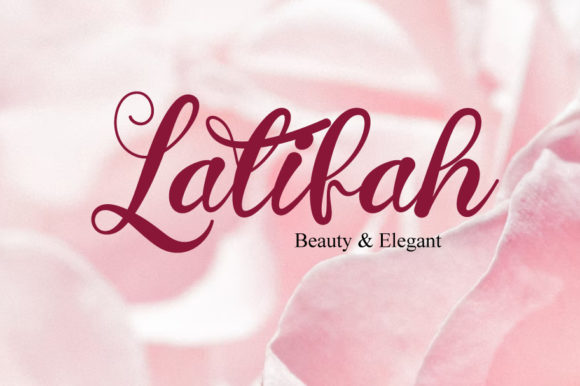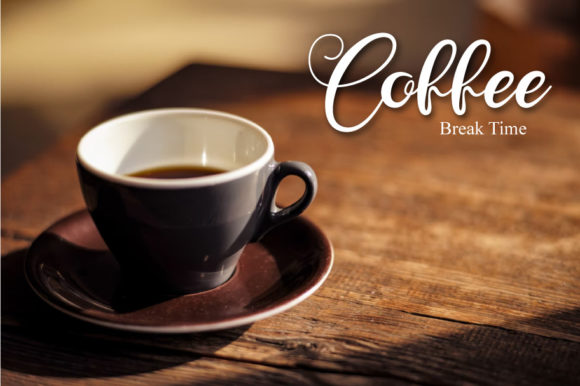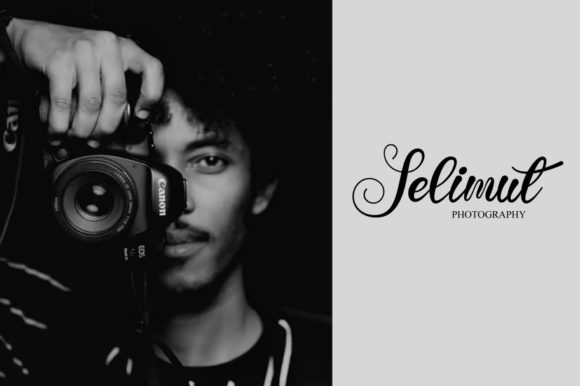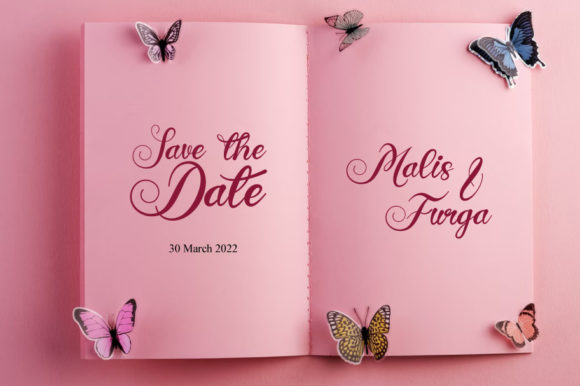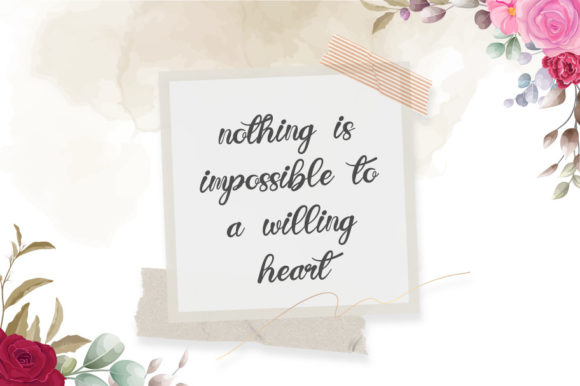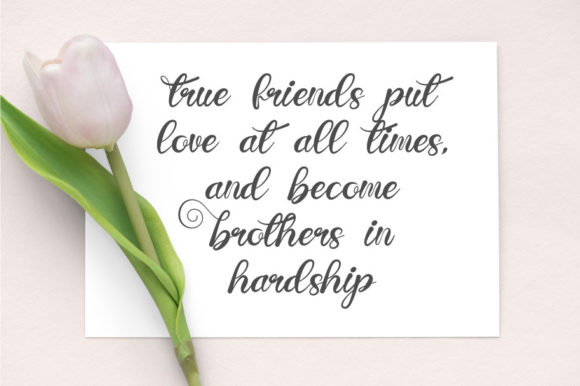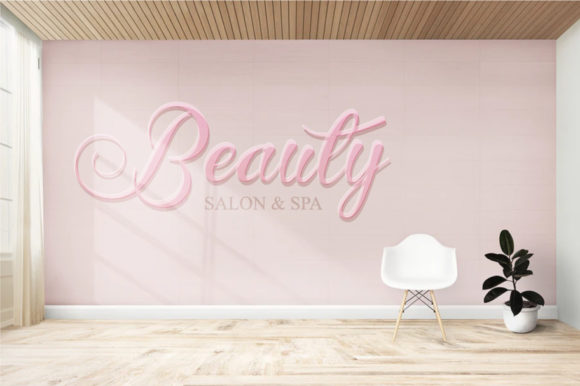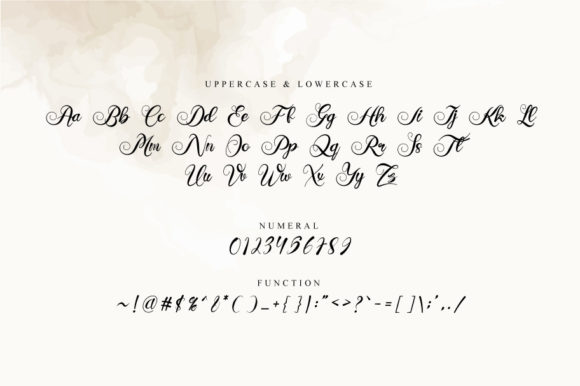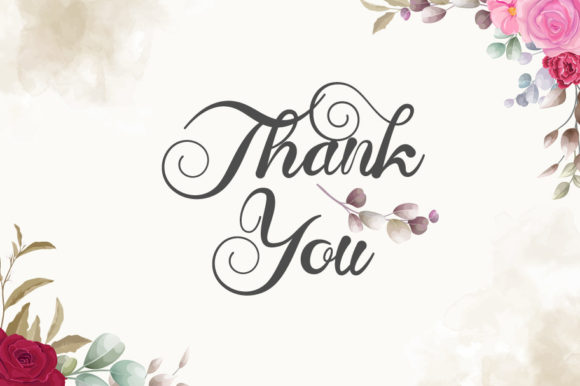
Bagikat Font
About Bagikat Font
Bagikat Script is a lovely and timeless handwritten font. It is the best choice for creating eye catching logos, branding and quotes. Every letter has a unique and beautiful touch, which will make your design come alive!